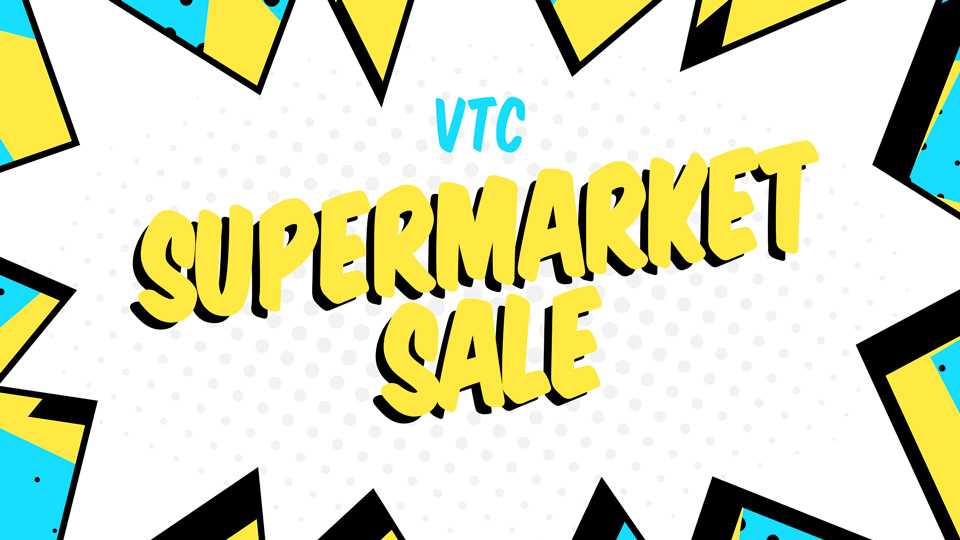
Download VTC Supermarket Sale font, a hand lettered marker typeface inspired by shop signages. With a wide range of styles, Supermarket Sale t is ideal for creating eye-catching lettering and posters.